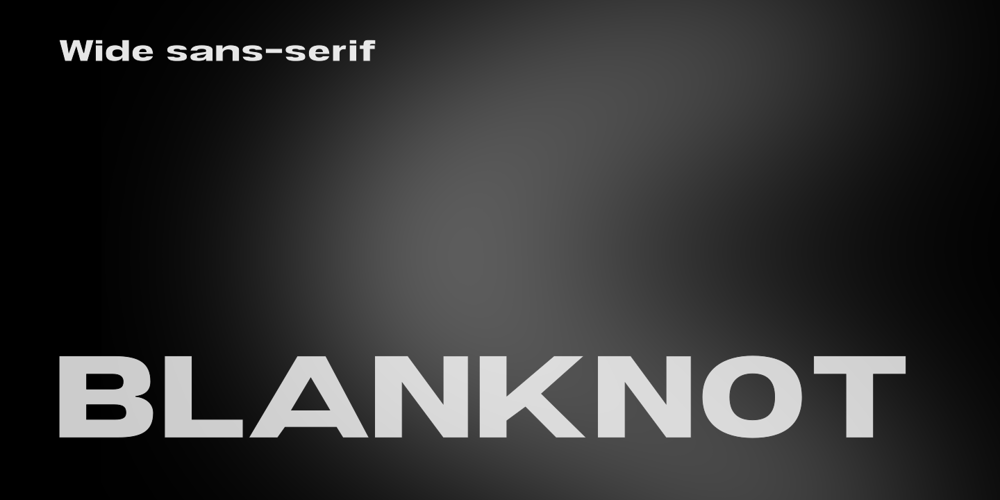
Blanknot Font Family was designed by Arief Rochman and published by 4RM Font. Blanknot contains 2 styles and family package options. Made in bold style and wide, as well as consistent spacing between letters, this font has a distinctive aesthetic value, suitable for graphic design use such as logos, posters, and others.